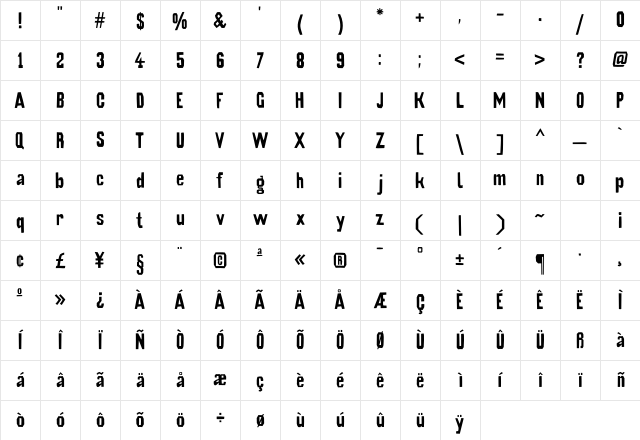
Iodine Regular Free Font
Iodine Regular
Design Context for Iodine
Iodine is a composed and adaptable typeface that performs quietly and consistently across a wide range of design contexts.